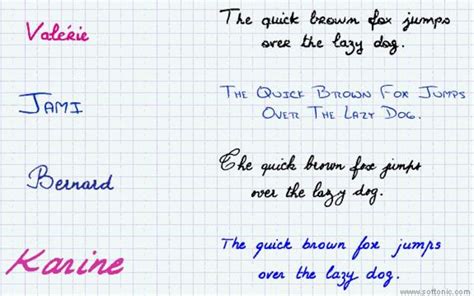
Handwriting Font Scanner App / Handwritten fonts image by Mark Gutierrez on Blog Research / You can show this to your friends and become more cool in your 5.. Archive of freely downloadable fonts. Browse by alphabetical listing, by style, by author or by popularity. You register at calligraphr, download a template, complete the template in your own although it does include using a printer and a scanner, variety is always good. Creates real cursive handwriting fonts to use on your computer. If there are multiple font styles or extraneous shapes in your image, please crop to the letters you are trying to match.
Unlike other ocr scanner apps, it is designed specifically to recognize handwriting. It is a scanner app that will quickly take a snap of your text and turn it into digital format. 17 handwriting fonts latest version: Upgrade to premium plan to edit your text, save it to. Demo donationware free free for personal use public domain, gpl, ofl shareware.
Creates real cursive handwriting fonts to use on your computer. If there are multiple font styles or extraneous shapes in your image, please crop to the letters you are trying to match. Demo donationware free free for personal use public domain, gpl, ofl shareware. Seventeen fonts that simulate handwriting. The best selection of handwriting fonts for windows and macintosh. Click now to see our extensive variety! Created by define studios, the app is the recognized text is displayed in an adjacent window. Letter from you 2.0handwritten letter, mailed for you.
The process of turning your handwriting into a font is fairly simple.
Archive of freely downloadable fonts. The font matcherator will help you identify what the font is in any image. You'll find most of the typical features. Craft a personalized note with one of these amazing handwritten fonts below. Photo scan is a free windows 10 ocr app you can download from the microsoft store. Browse by alphabetical listing, by style, by author or by popularity. Looking for real cursive handwriting fonts? Fontselfmake your own fonts in photoshop & illustrator. The uneven letters (with bold and thinner letters) it looks as though someone dipped a quill in ink and scratched the font onto a paper. Review written by derek lee. Fast scanner a solid scanner app. Handwriting apps are a great tool when you are not able to understand what someone has written. Created by define studios, the app is the recognized text is displayed in an adjacent window.
It'll open a preview, click on set button to set your own handwriting as. My script fontmake a font with your own handwriting. Browse by alphabetical listing, by style, by author or by popularity. You'll find most of the typical features. Writing fonts include both printing and cursive styles and is less artistic than formal calligraphy.
You register at calligraphr, download a template, complete the template in your own although it does include using a printer and a scanner, variety is always good. This font would be a great choice for illustrations or designs that really wanted to recreate a diy feel. You'll find most of the typical features. Click the speaker icon and the app will read aloud what it just scanned. Demo donationware free free for personal use public domain, gpl, ofl shareware. Handwriting fonts free is a font style to used in your samsung galaxy device for making your phone font style which you like to set without restart your phone or withour rooted your device. Imagine being able to create announcements, invitations, and correspondence using one of 20 so you'll be able to impress your international friends and family, too! Browse by alphabetical listing, by style, by author or by popularity.
It supports the key features for document scanning, conversion, and sharing.
Review written by derek lee. Internet archive html5 uploader 1.4.1. Browse by alphabetical listing, by style, by author or by popularity. Archive of freely downloadable fonts. Photo scan is a free windows 10 ocr app you can download from the microsoft store. If there are multiple font styles or extraneous shapes in your image, please crop to the letters you are trying to match. Demo donationware free free for personal use public domain, gpl, ofl shareware. How do handwriting recognition apps work? It is a scanner app that will quickly take a snap of your text and turn it into digital format. Unlike other ocr scanner apps, it is designed specifically to recognize handwriting. Font name newest most downloads. Another best handwriting to text app for android where users can perform everything what they usually expect from any best android this is basically a scanner app in which users can scan any type of text, whether it is handwritten or typed. Fast scanner a solid scanner app.
Letter from you 2.0handwritten letter, mailed for you. Using android with our own handwriting fonts gives a different user experience at all. Or, you could use a handwriting font, a typeface that looks like it's been written by hand. Writing fonts include both printing and cursive styles and is less artistic than formal calligraphy. My script fontmake a font with your own handwriting.
The victor handwriting font has a truly handwritten feel; My script fontmake a font with your own handwriting. The uneven letters (with bold and thinner letters) it looks as though someone dipped a quill in ink and scratched the font onto a paper. The text to speech feature is a highlight. Writing fonts include both printing and cursive styles and is less artistic than formal calligraphy. Photo scan is a free windows 10 ocr app you can download from the microsoft store. If there are multiple font styles or extraneous shapes in your image, please crop to the letters you are trying to match. If you'd like to have several samples of handwriting turned into.
If you'd like to have several samples of handwriting turned into.
In the ifont app, open my tab and click on my font » select 'click this' to pick your font from sdcard. Handwriting fonts are written with a pen, pencil, or marker. If you'd like to have several samples of handwriting turned into. It's a program frequently downloaded in india, united states, and nigeria.since the program has been added to our selection of software and apps in 2011, it has. Click now to see our extensive variety! You can show this to your friends and become more cool in your 5. Another best handwriting to text app for android where users can perform everything what they usually expect from any best android this is basically a scanner app in which users can scan any type of text, whether it is handwritten or typed. In such a situation, these apps can be quite helpful. Writing fonts include both printing and cursive styles and is less artistic than formal calligraphy. Click the speaker icon and the app will read aloud what it just scanned. That includes pdf and jpeg support, document scanning, and genius scan is another of the most popular document scanner apps out there. 17 handwriting fonts, free and safe download. The only caveat is that you will have to download one note, to use the ocr feature of office lens.